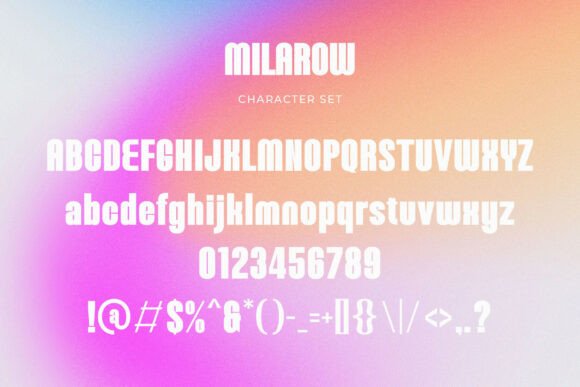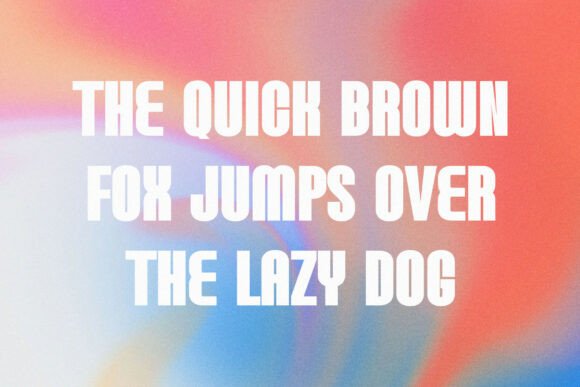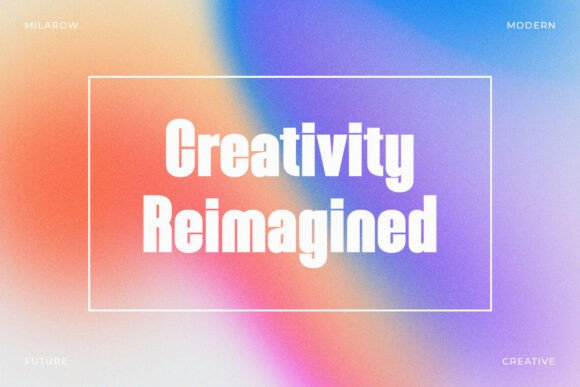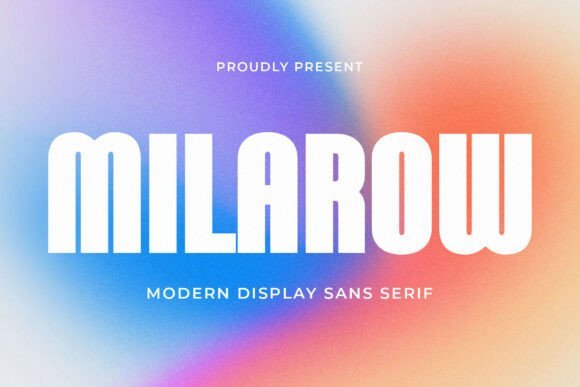
Introduction to Milarow Font
Milarow is a unique and elegant sans serif font.
It looks beautiful on a variety of designs requiring a personalized style, such as wedding invitations, thank you cards, weddings, greeting cards, logos and so on .
Milarow Font offers exceptional quality and versatility, making it a valuable addition to your design toolkit. Whether you’re creating for personal projects or commercial use, Milarow Font delivers professional results.